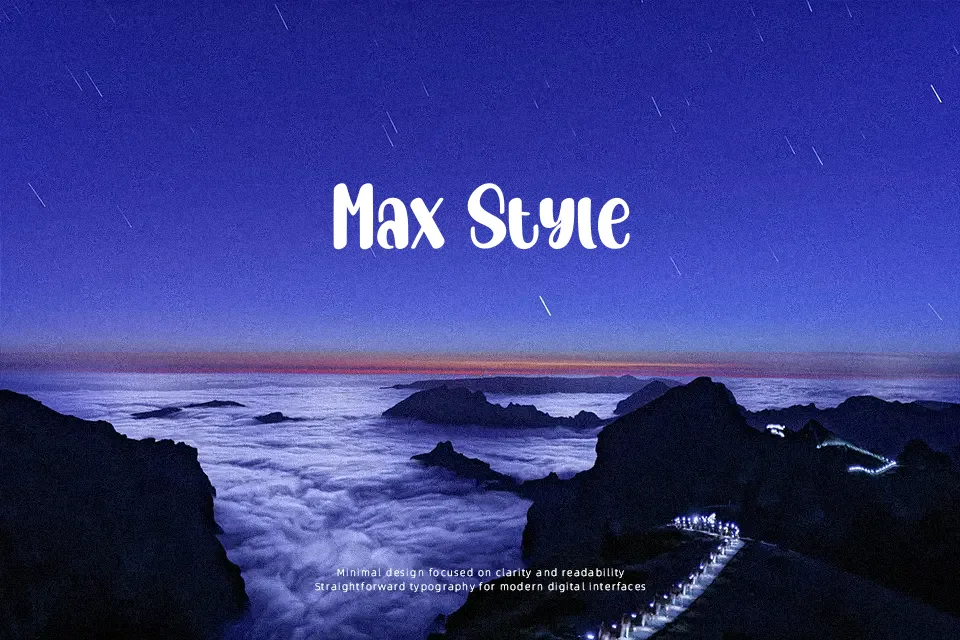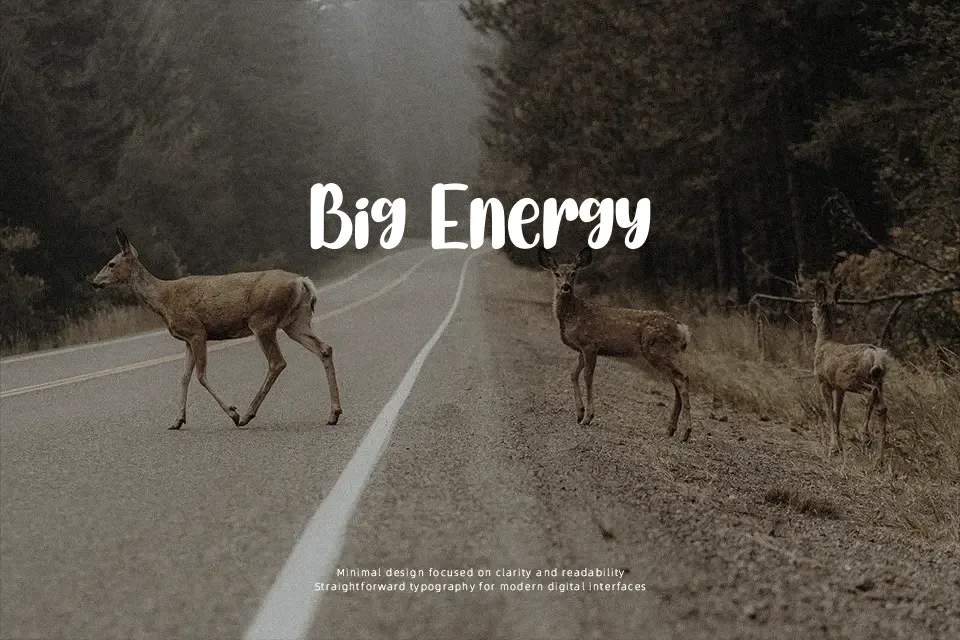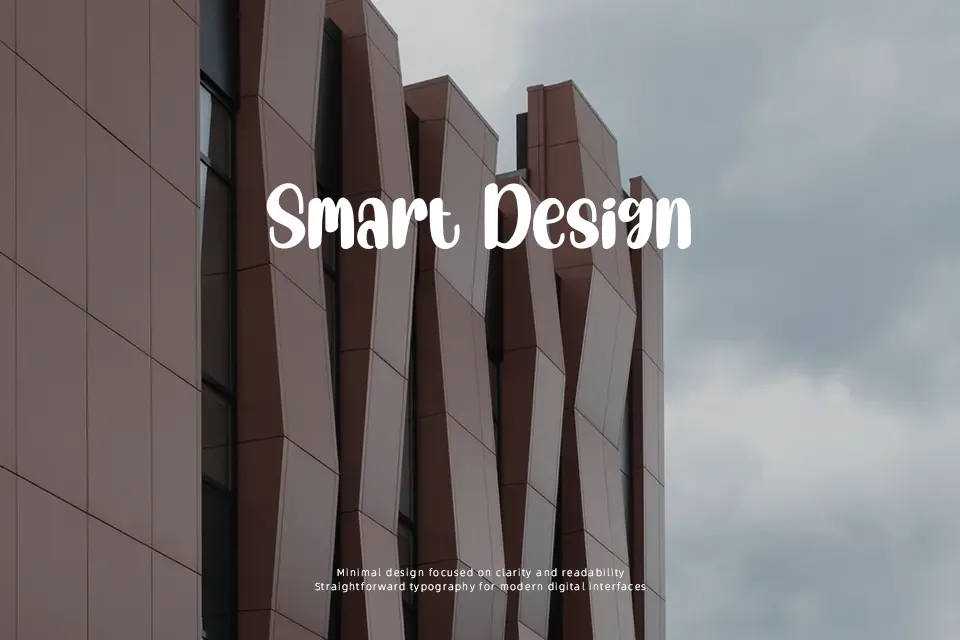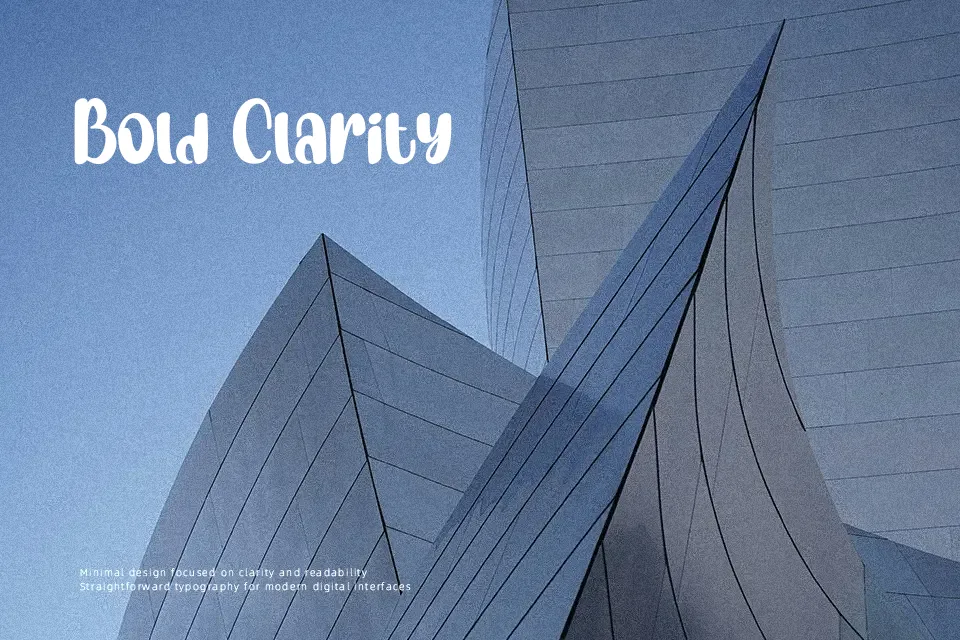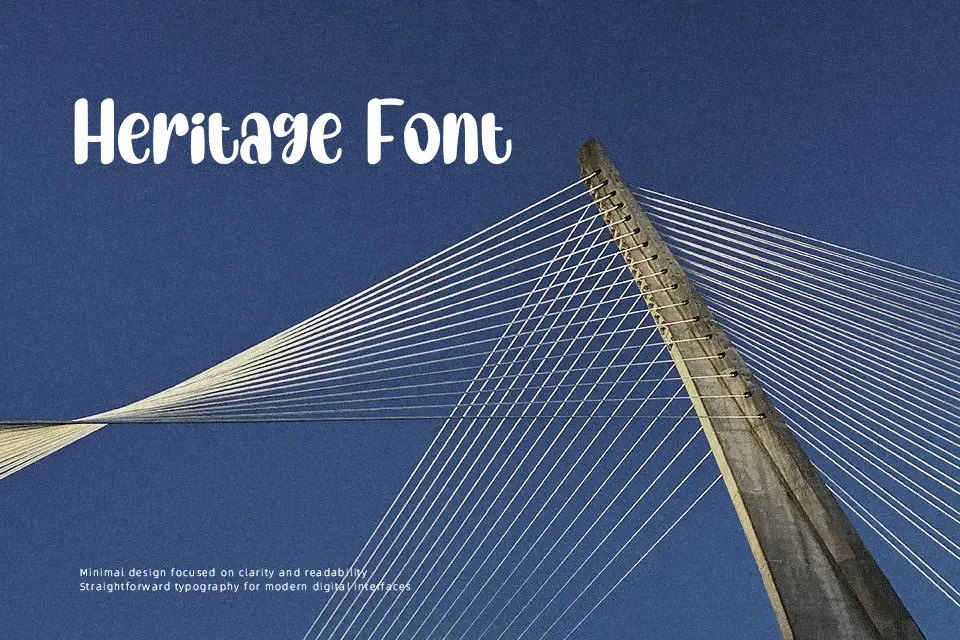
Spooky Island Font
Spooky Island Font combines casual handwritten aesthetics with bold display contours that immediately draw attention. The letterforms exhibit varied stroke thicknesses, rounded terminals, and compact letter spacing that create a lively, expressive rhythm across titles. While its tall proportions and playful silhouettes excel in celebratory posters, packaging accents, and themed event invitations, the dense character geometry becomes difficult to read at smaller point sizes. For continuous body copy or complex data layouts, the tight counters and informal structure reduce comfort during extended reading. When applied selectively to prominent display lines, the design delivers distinct character and immediate visual impact.
Best For: greeting card headlines, themed party invitations, festive event posters, holiday merchandise packaging
Not Ideal For: continuous book body copy, legal documents, mobile interface labels, dense data spreadsheets
Perfect for halloween, headline, and invitation, with a creative and decorative style.